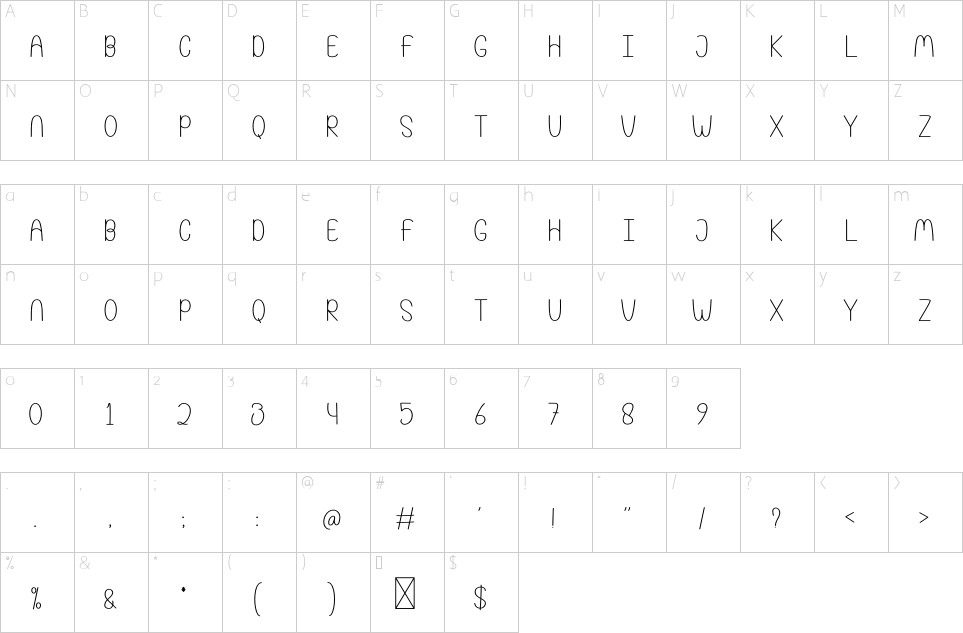
Abc Teacher Font - The teachers font is an educational font family created for use by publishers, teachers,. Abcteacher font family designed by unknown designer has a total of 1 different styles. The font is only for commercial. The font abcteacher can't be downloaded from fontpark.com. Click to find the best 174 free fonts in the teachers style.
Abc Teacher Font
The Teachers Font Is An Educational Font Family Created For Use By Publishers, Teachers,.